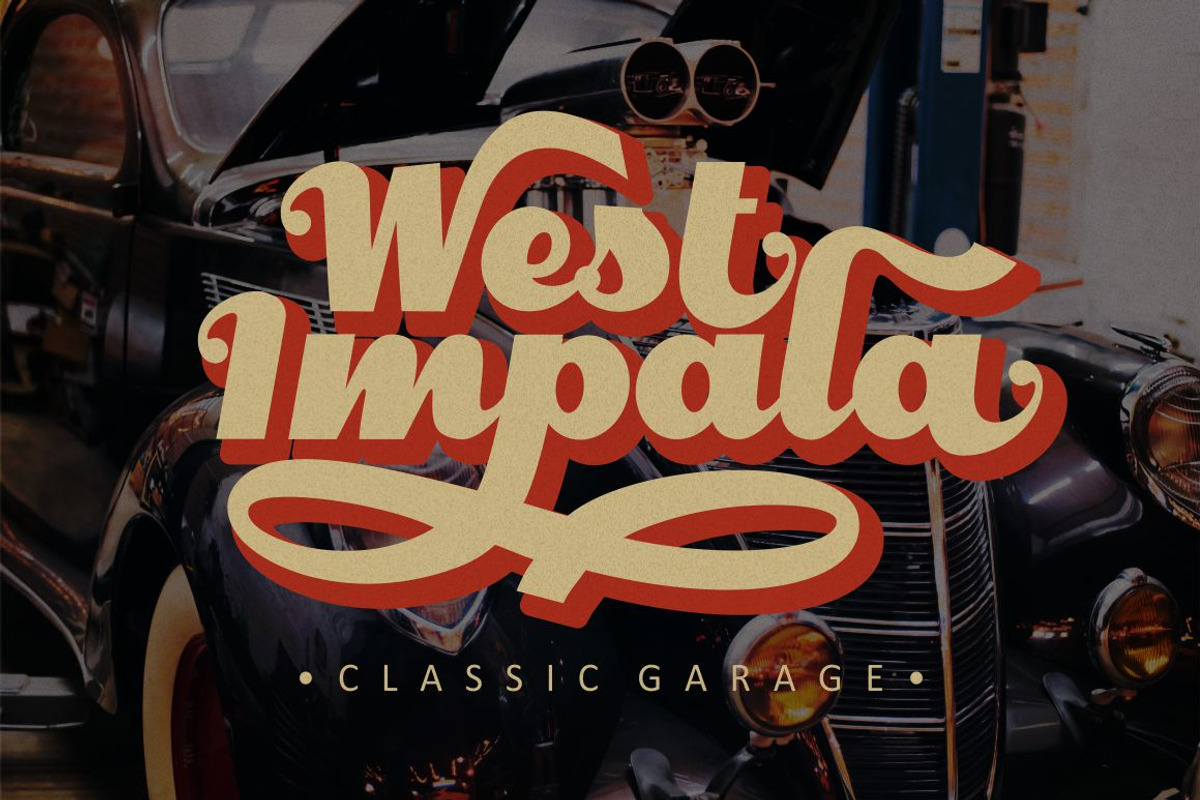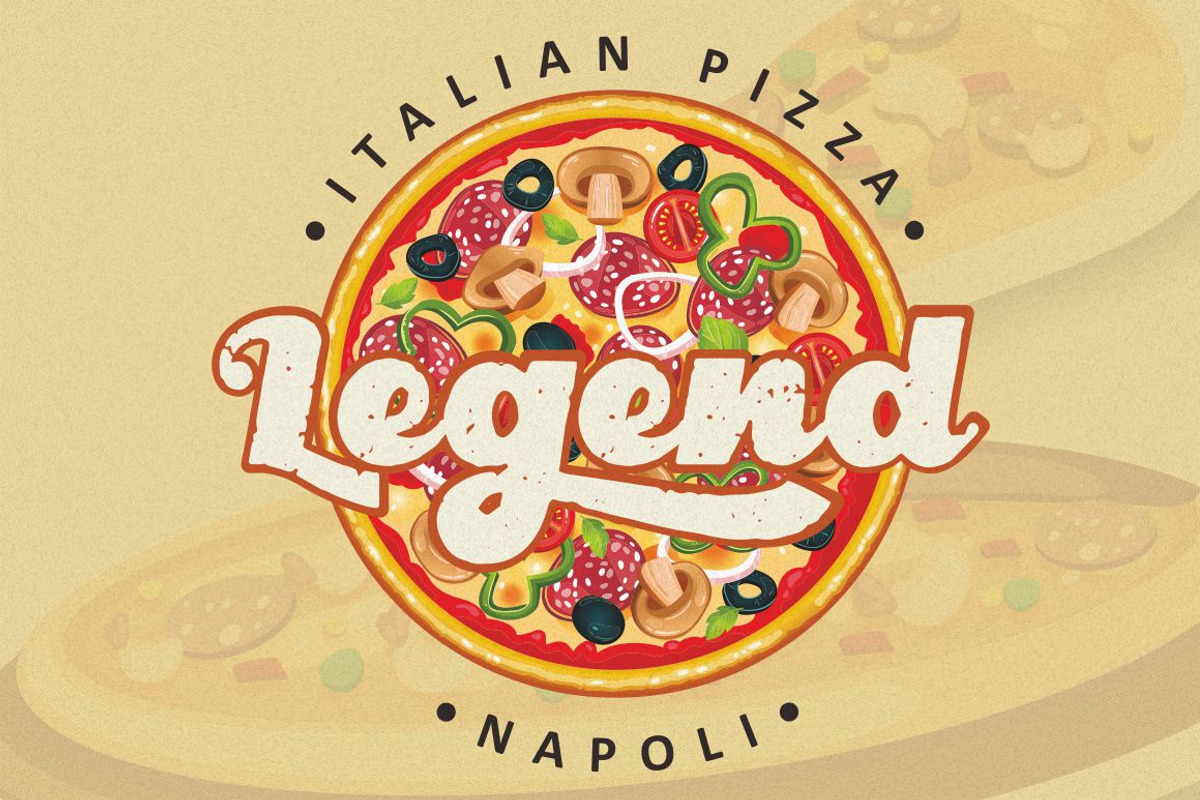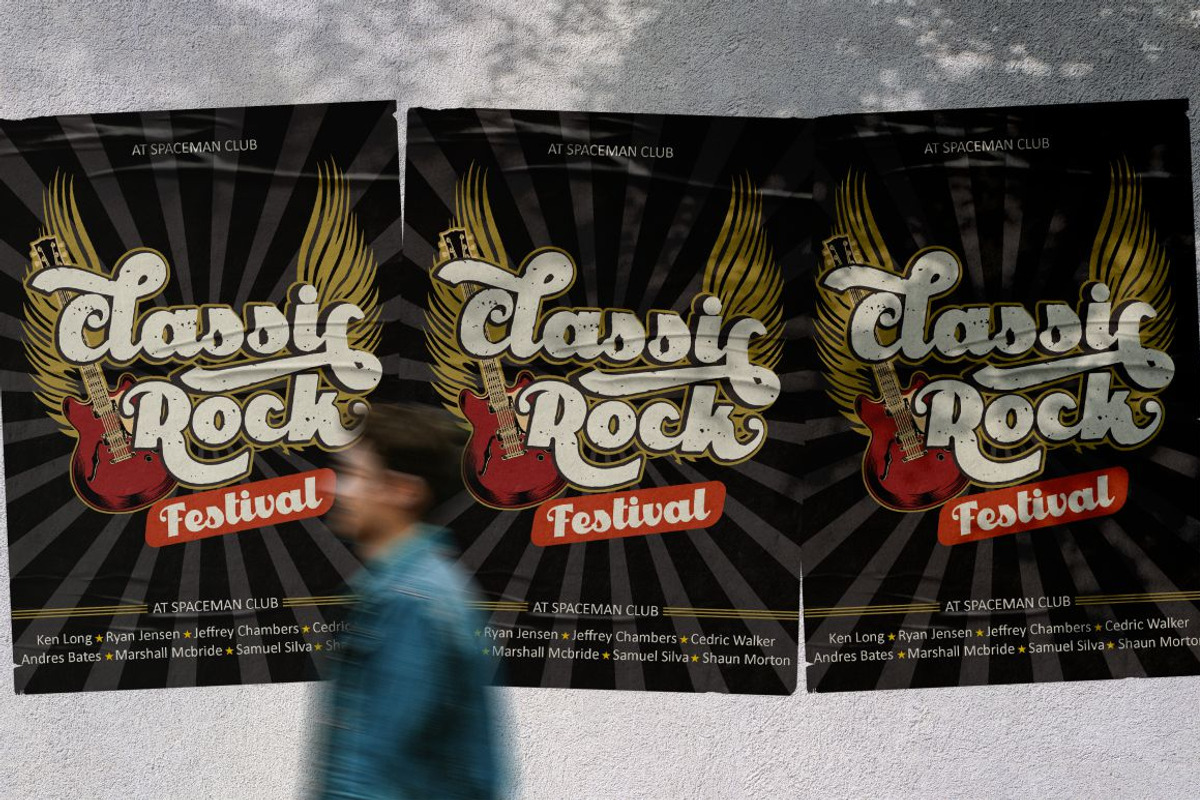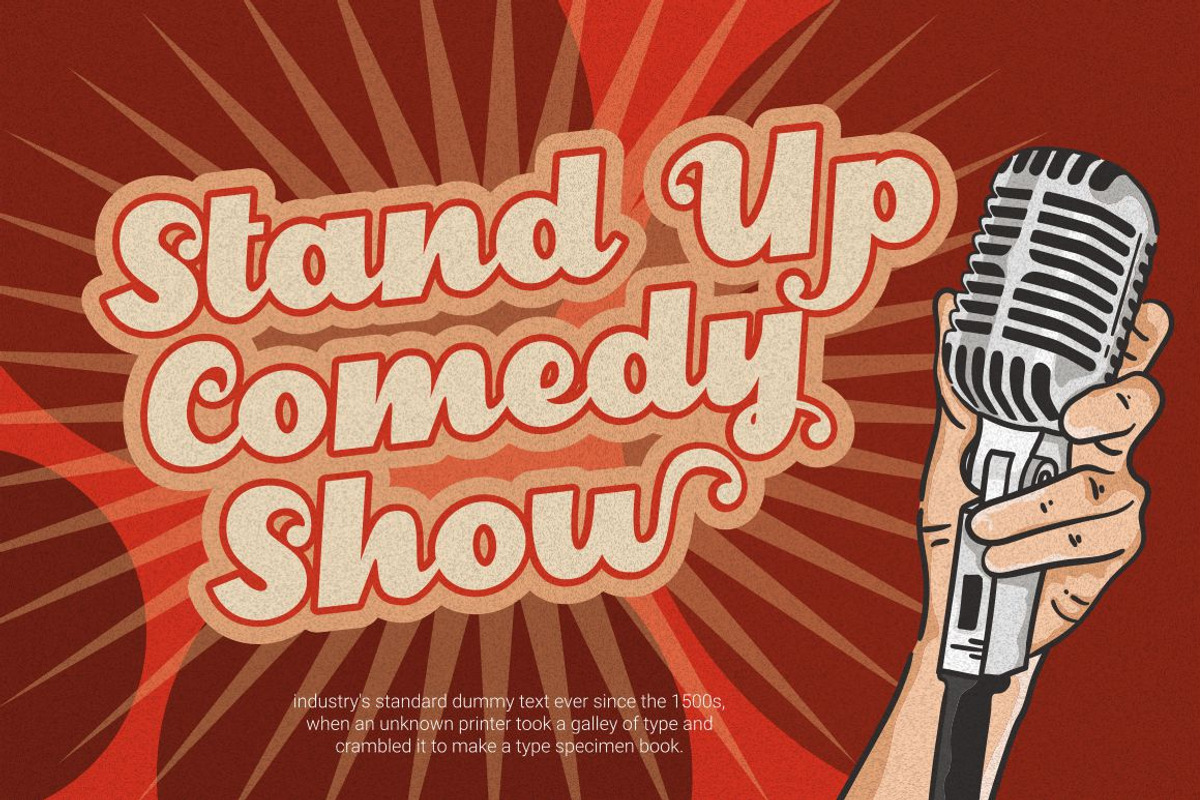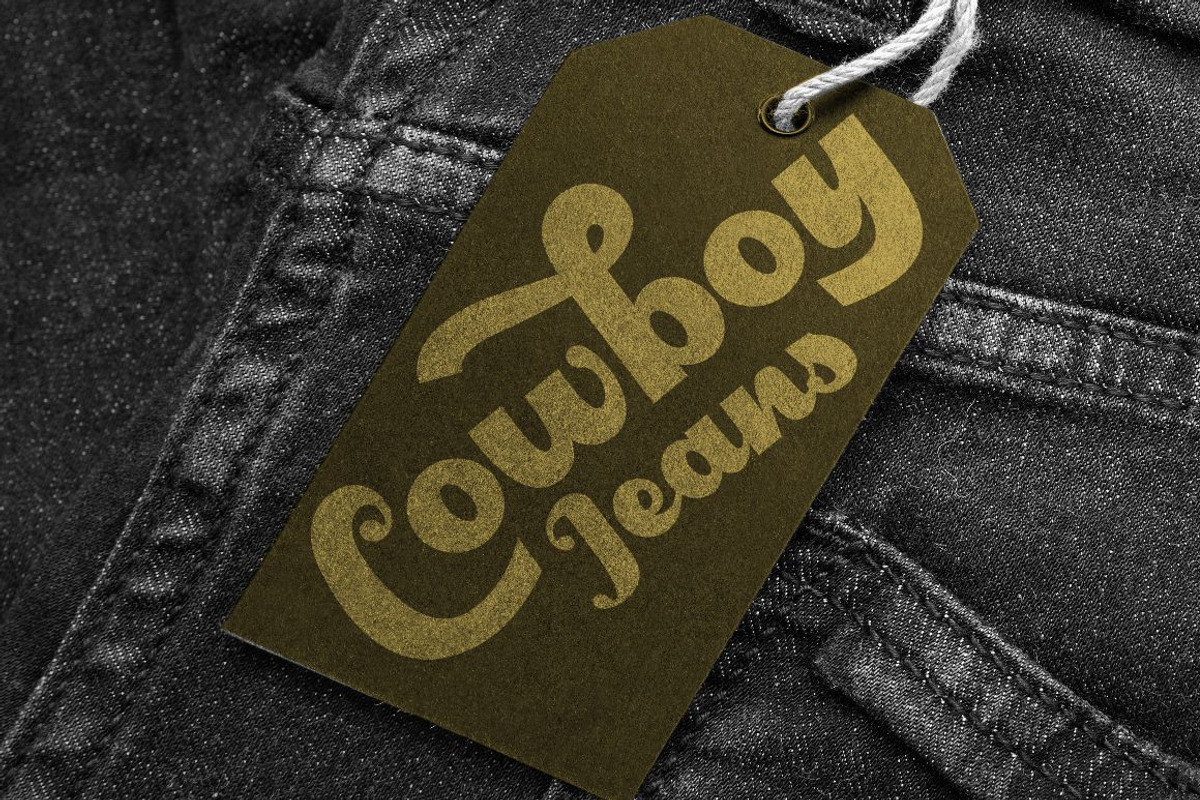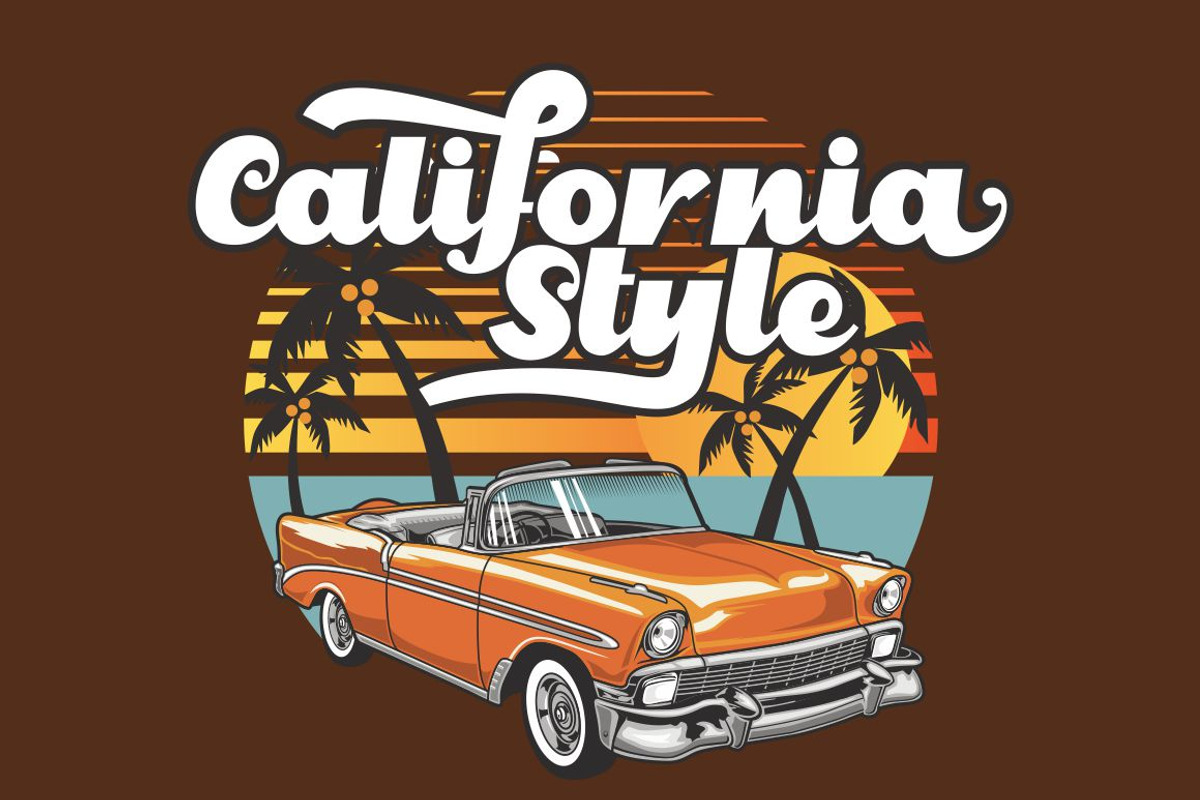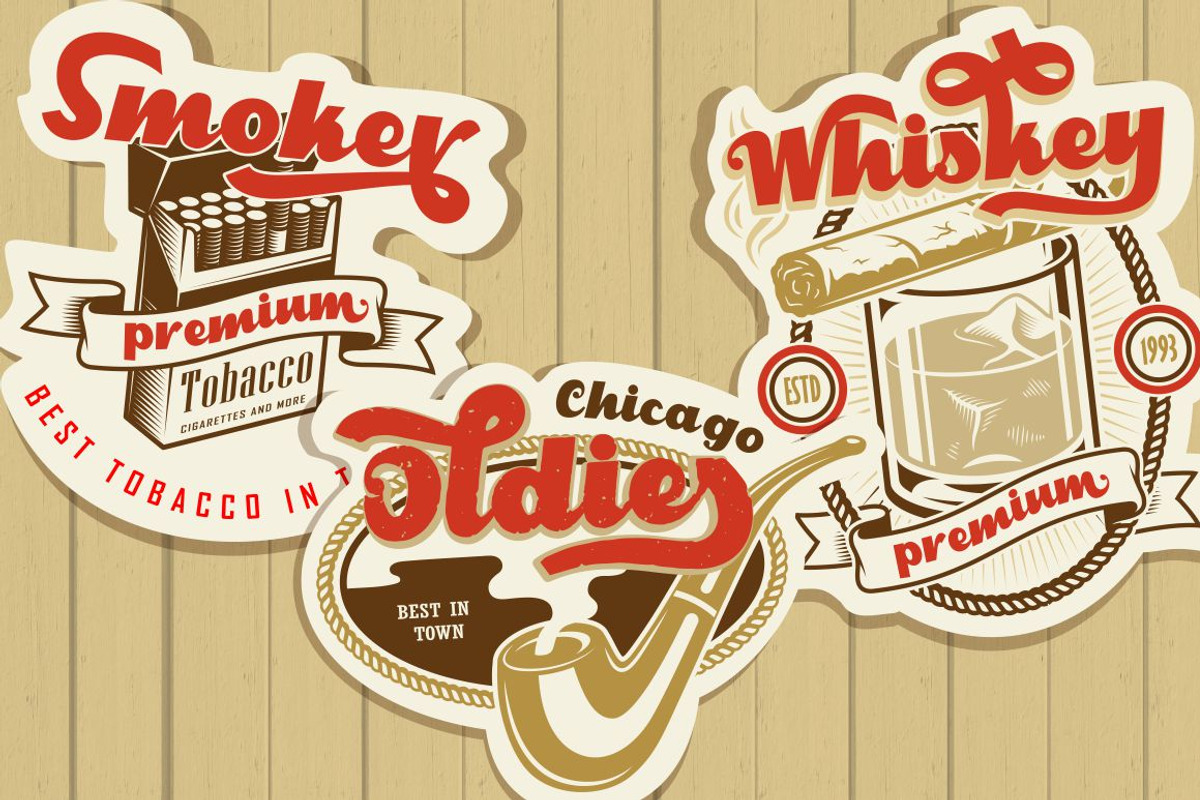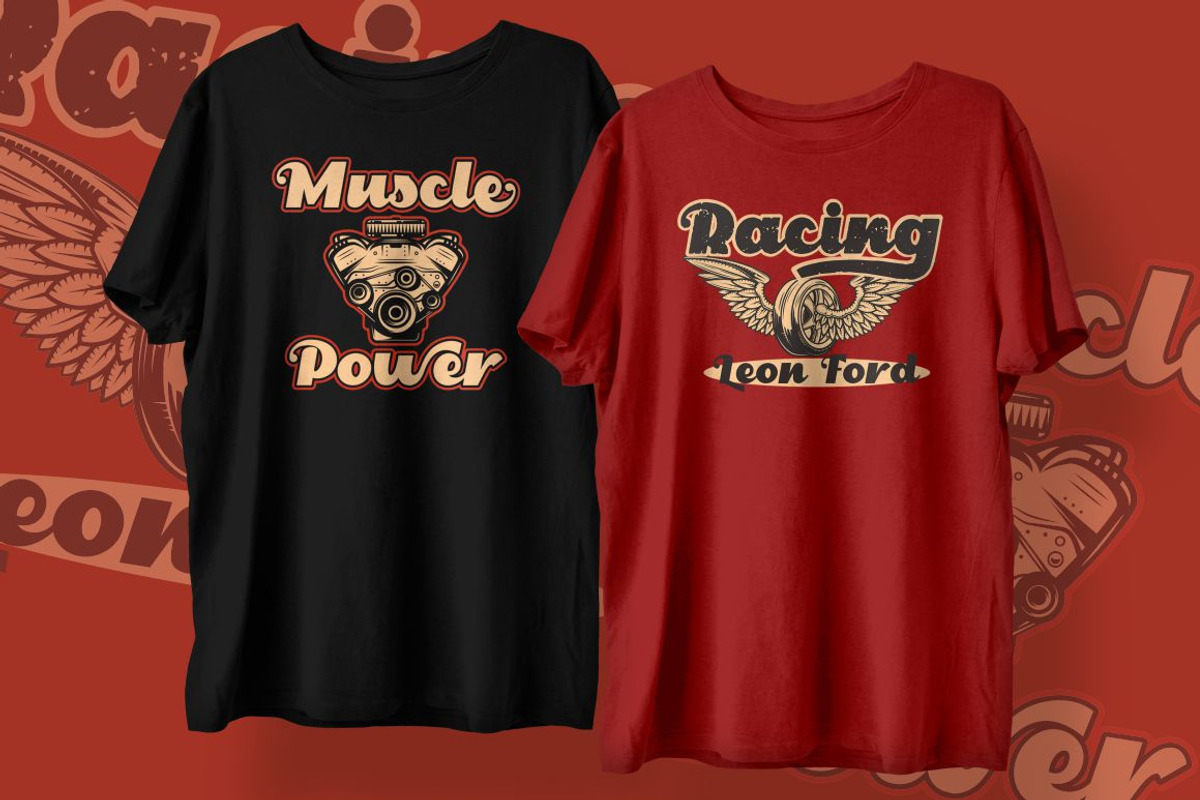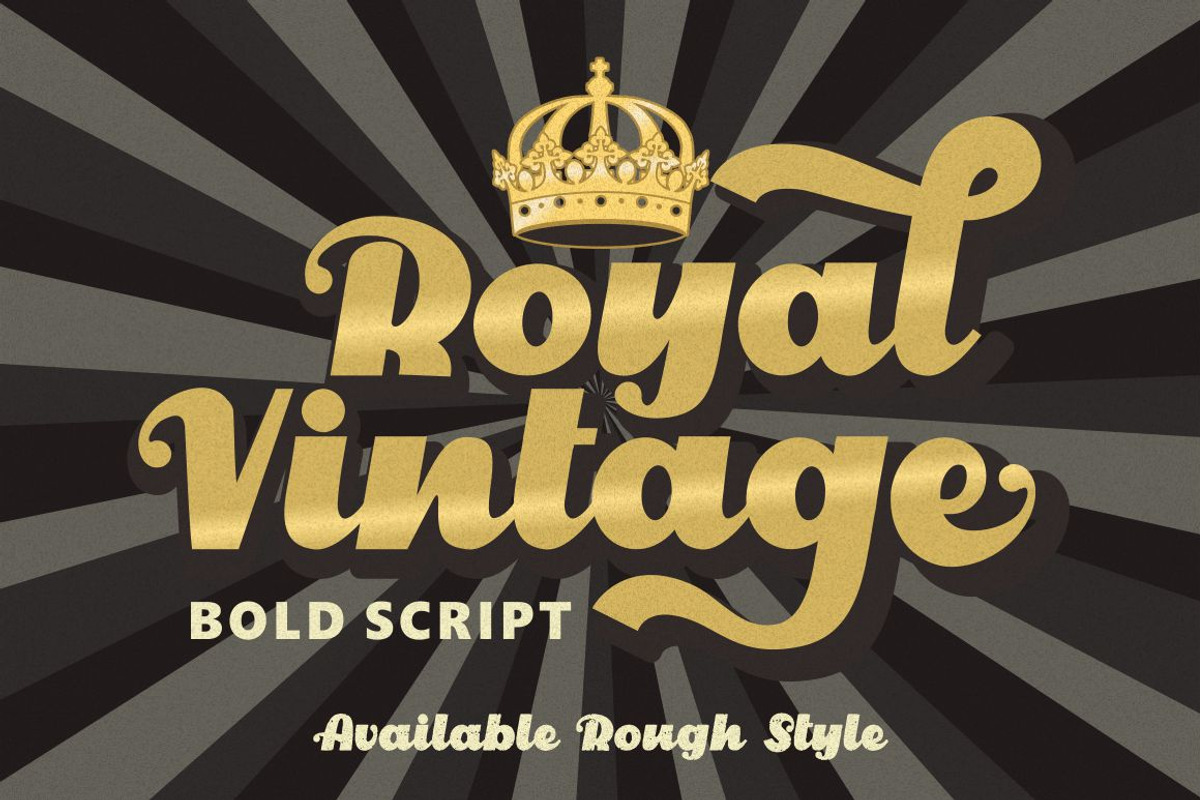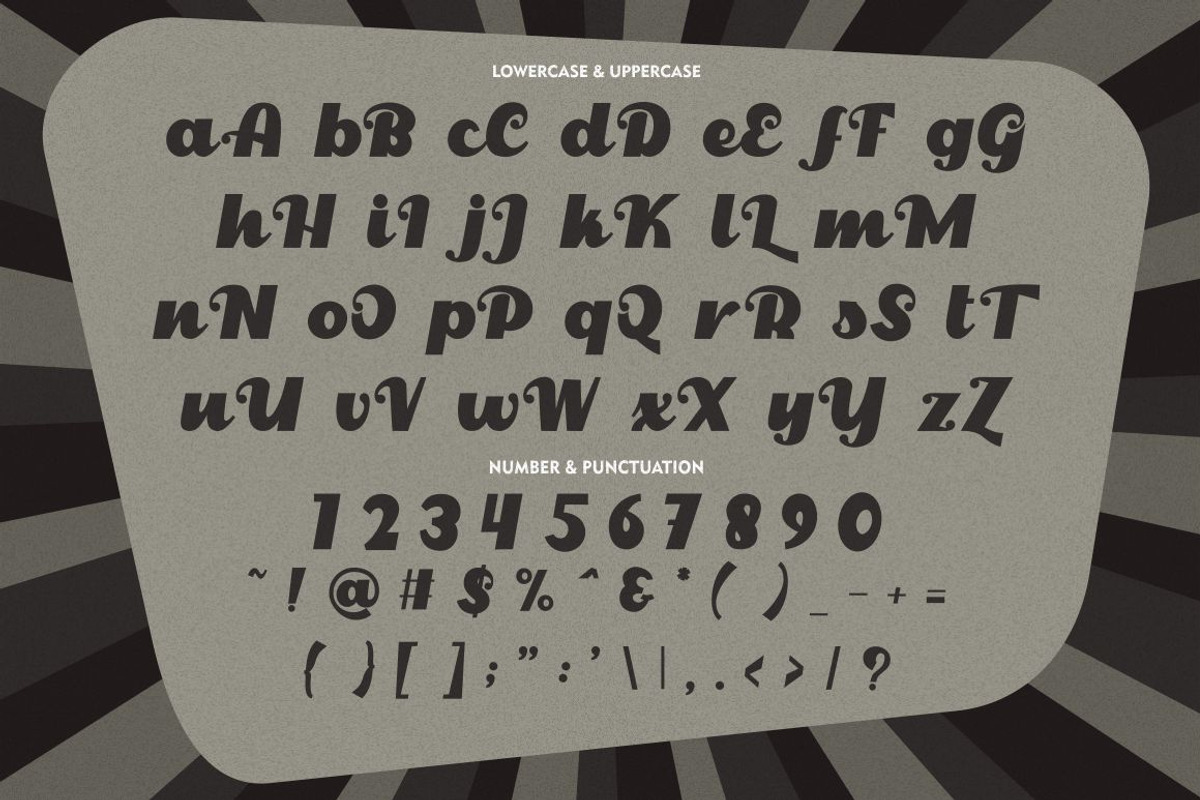
Royal Vintage - Bold Retro Font
Royal Vintage
Introducing Royal Vintage - retro bold script style font. Inspired from retro typography and lettering in the 70's and 80's combine with bold typography style. This font come with clean and rough font version. With this font will bring you back to 70s feel. Royal Vintage is perfect for vintage and retro design, badge, logos,t-shirt, poster, branding, packaging, signage, book coverand so much more!
Come with Opentype feature with a lot of alternates, its help you to make great lettering. This font is also support multi language.